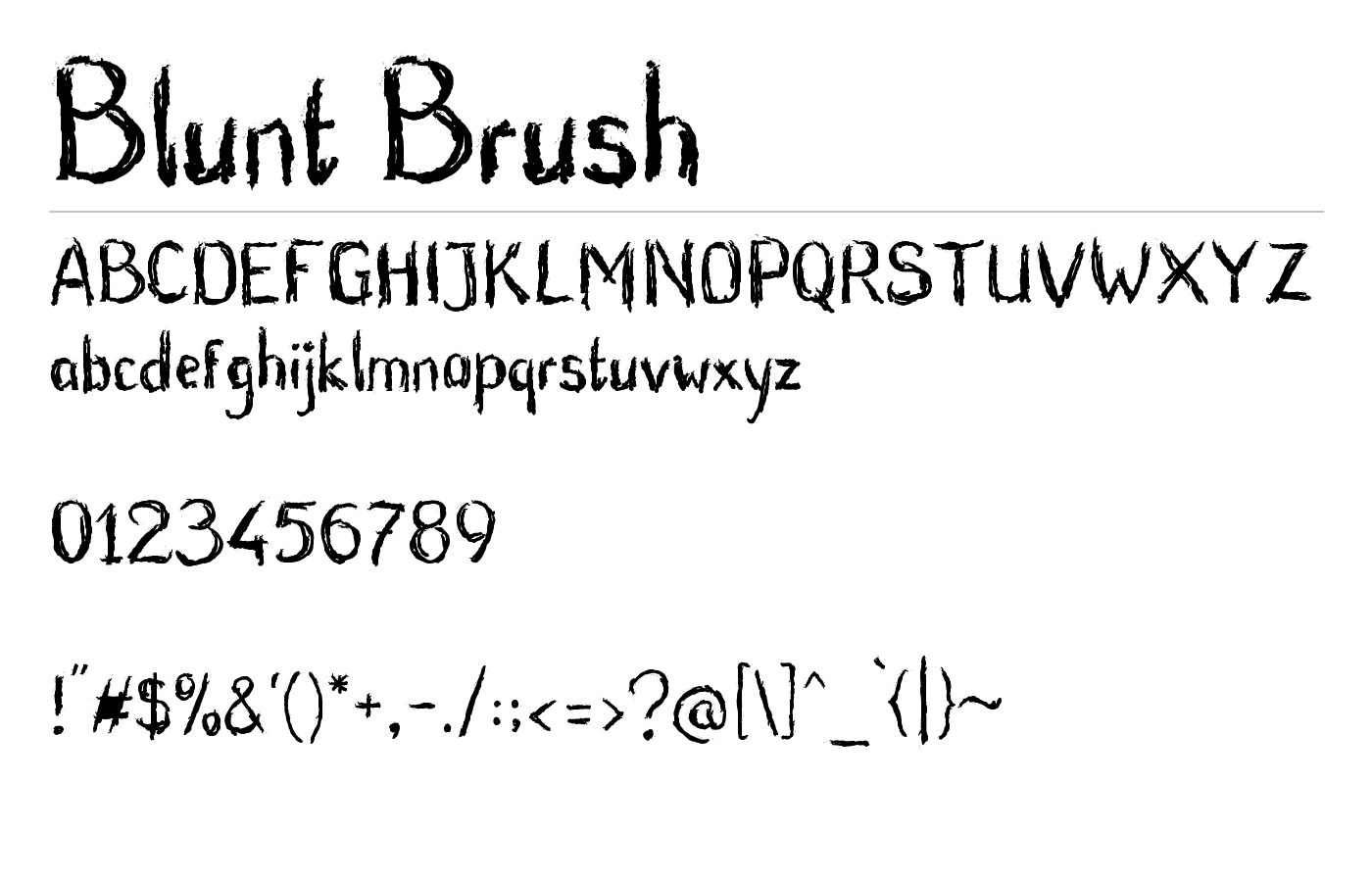
Blunt Brush is a textured, hand-drawn brush font with irregular edges that give it a casual, artistic feel. Its uneven stroke weight and playful, slightly rough appearance make it ideal for creative, informal designs such as posters, logos, and packaging that want to convey energy and uniqueness. This font works well where a personal, handcrafted vibe is desired, standing out with a lively and expressive style.
Blunt Brush Font
About Blunt Brush Font